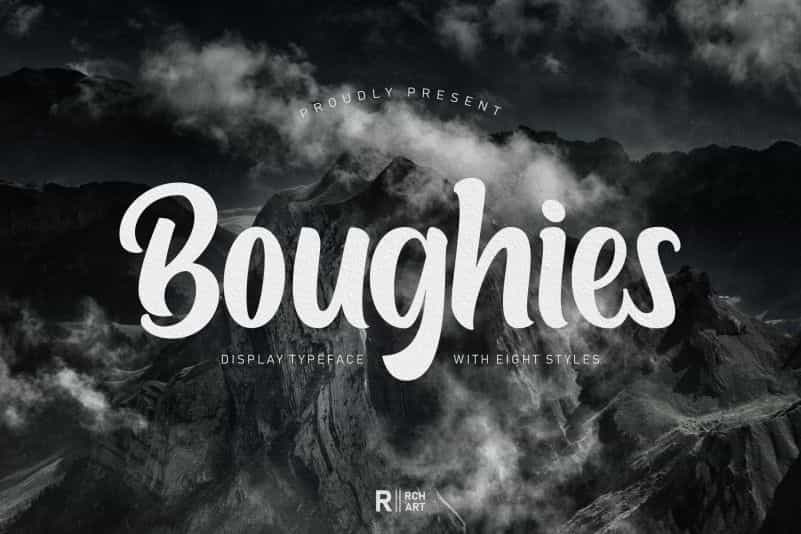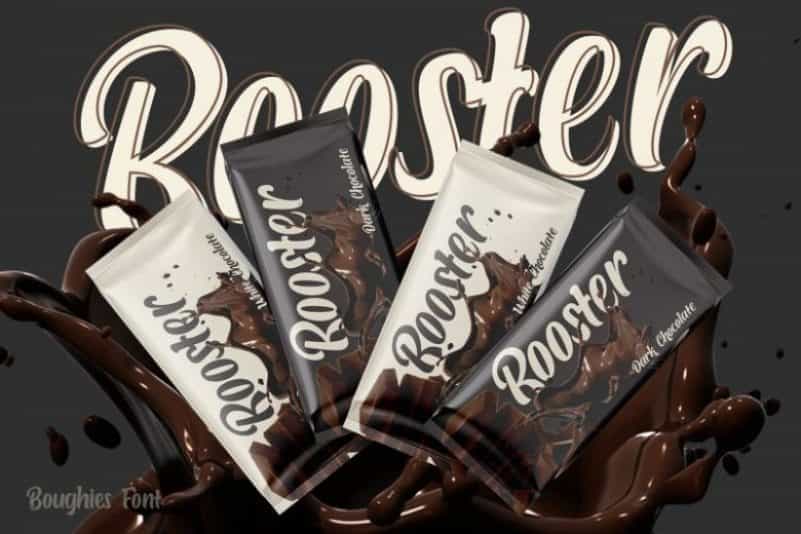
Discover Boughies Typeface, part of the Brush Display Decorative collection—a versatile and unique font perfect for adding a personal touch to your projects. Download it for free and enjoy crafting designs with style, from invitations to social media posts. This font is available exclusively for personal use, giving you the freedom to create without limits. Unlock your creativity with Boughies Typeface today!
The Boughies typeface comes under the category of Modern bold font. This boughies font is perfect for Branding, Logo Design, Lettering, Logotype, Clothing, Poster, magazine and other designs.